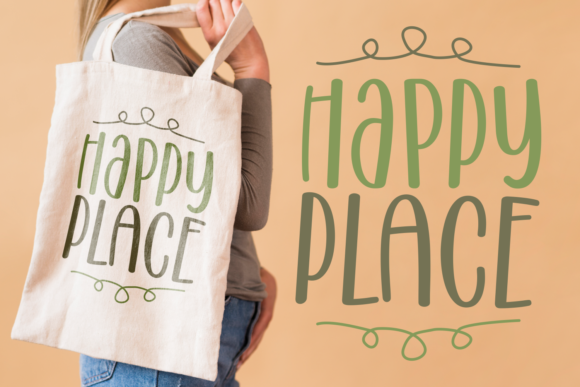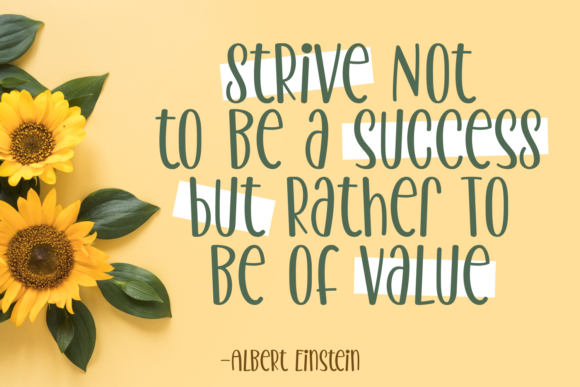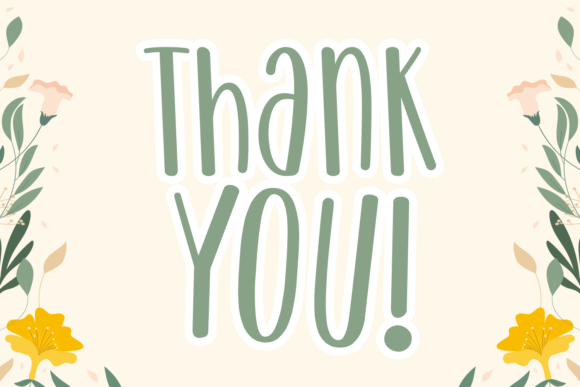
Discover the Charm of Before Monday Font: Elevate Your Designs with a Friendly Display Font
Are you on the hunt for a font that adds a touch of friendliness and charm to your designs? Look no further than the Before Monday Font. This great display font is making waves in the design community for its incredible friendly look and cute characters that can instantly elevate a wide range of design projects.
What Makes Before Monday Font Stand Out?
Before Monday Font is not just another font; it’s a design game-changer. Its unique blend of friendliness and sophistication makes it perfect for various applications, from branding and headings to wedding designs, invitations, signatures, logos, labels, and much more. The font’s design is carefully crafted to ensure that each character is not only aesthetically pleasing but also highly legible, making it an excellent choice for both digital and print designs.
One of the key benefits of the Before Monday Font is its versatility. Whether you’re working on a professional project or a personal craft, this font can adapt to any style or theme. For designers, it offers a fresh and unique look that can help differentiate your work from the crowd. For crafters, it’s an excellent tool for creating personalized items such as wedding invitations, greeting cards, and DIY labels.
• Branding: Create a memorable brand identity with a font that communicates friendliness and approachability.
• Wedding Designs: Add a touch of elegance and charm to wedding invitations, programs, and decorations.
• Invitations: Whether it’s a birthday party, baby shower, or any other celebration, Before Monday Font makes invitations more engaging and personal.
• Signatures and Logos: Give your signature or logo a unique and professional look that stands out.
• Labels: Create eye-catching labels for your products, gifts, or files with a font that’s both cute and readable.
Why Designers and Crafters Love Before Monday Font
The love for Before Monday Font stems from its ability to add a personal touch to any design project. Designers appreciate its high-quality design and the way it can enhance the visual appeal of their work. Crafters enjoy how easily it allows them to create personalized and unique items that are sure to impress.
Tips for Using Before Monday Font
Before Monday Font is more than just a display font; it’s a tool that can transform your designs by adding a friendly and charming touch. Whether you’re a professional designer looking to elevate your branding and advertising projects or a crafter aiming to create unique and personalized items, Before Monday Font is an excellent choice. Its versatility, legibility, and aesthetic appeal make it a valuable addition to any designer’s or crafter’s toolkit.